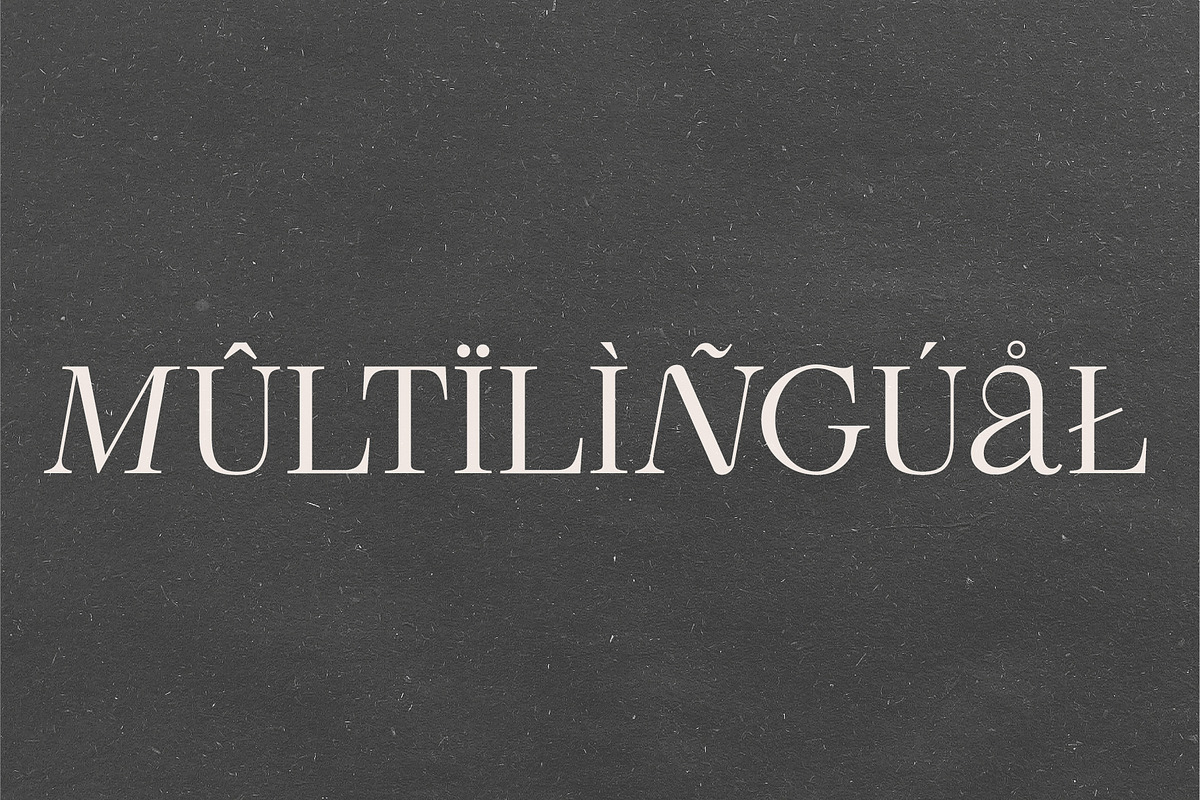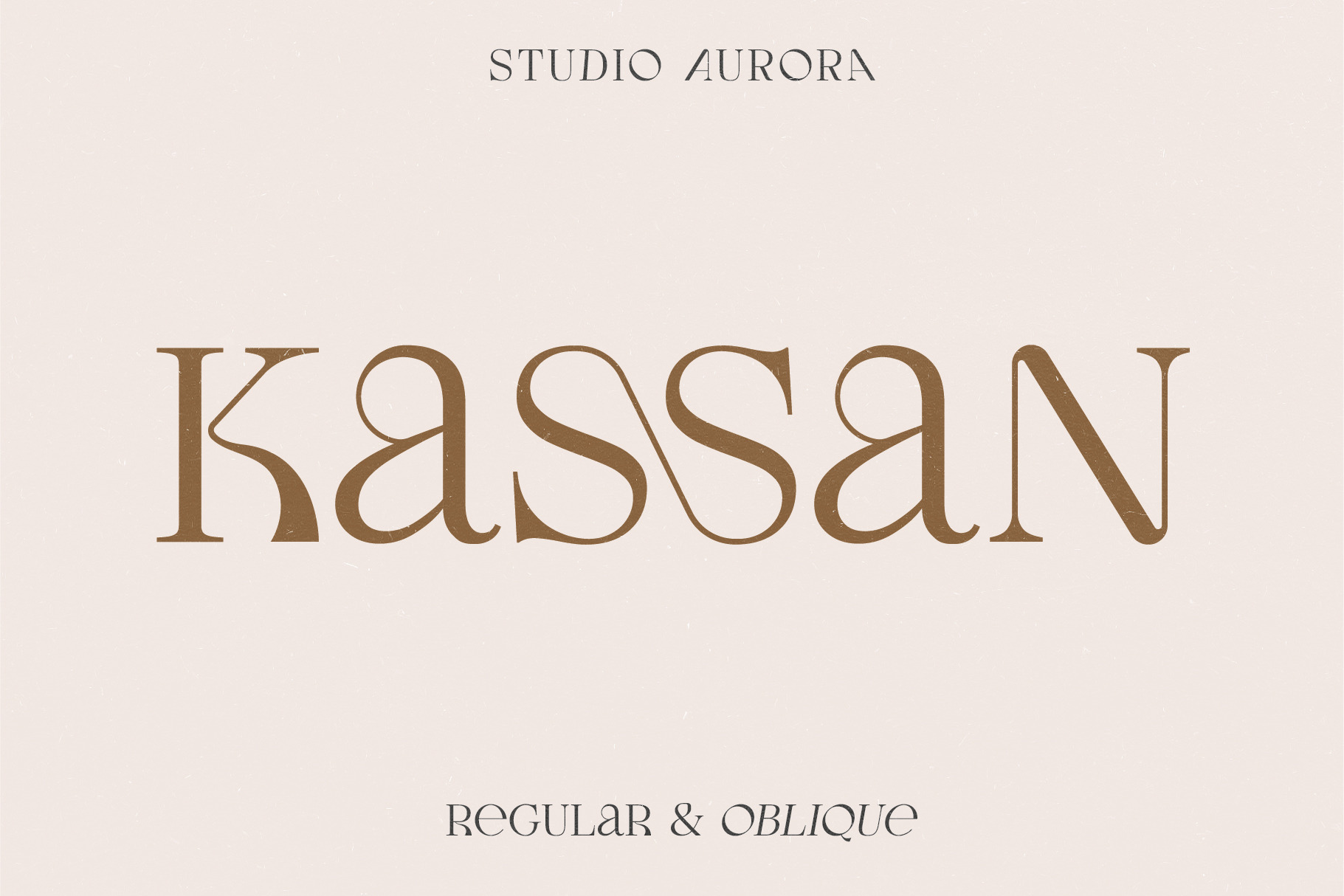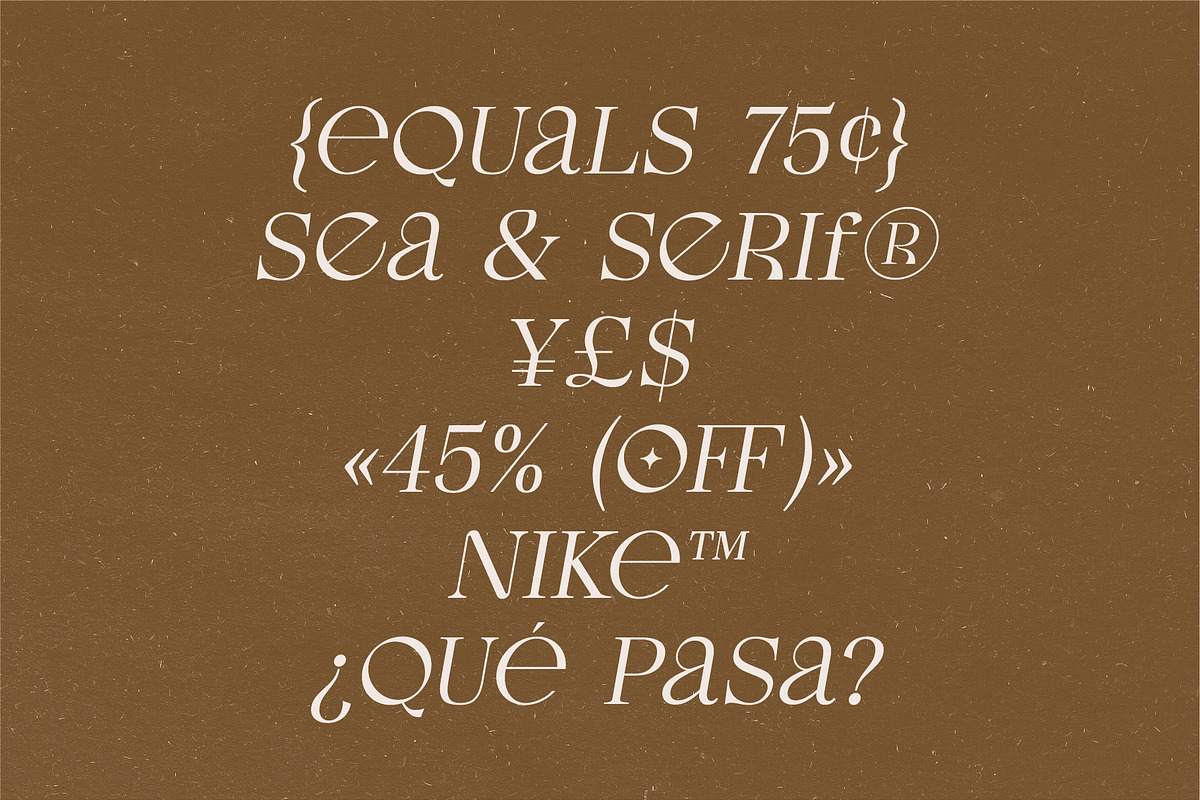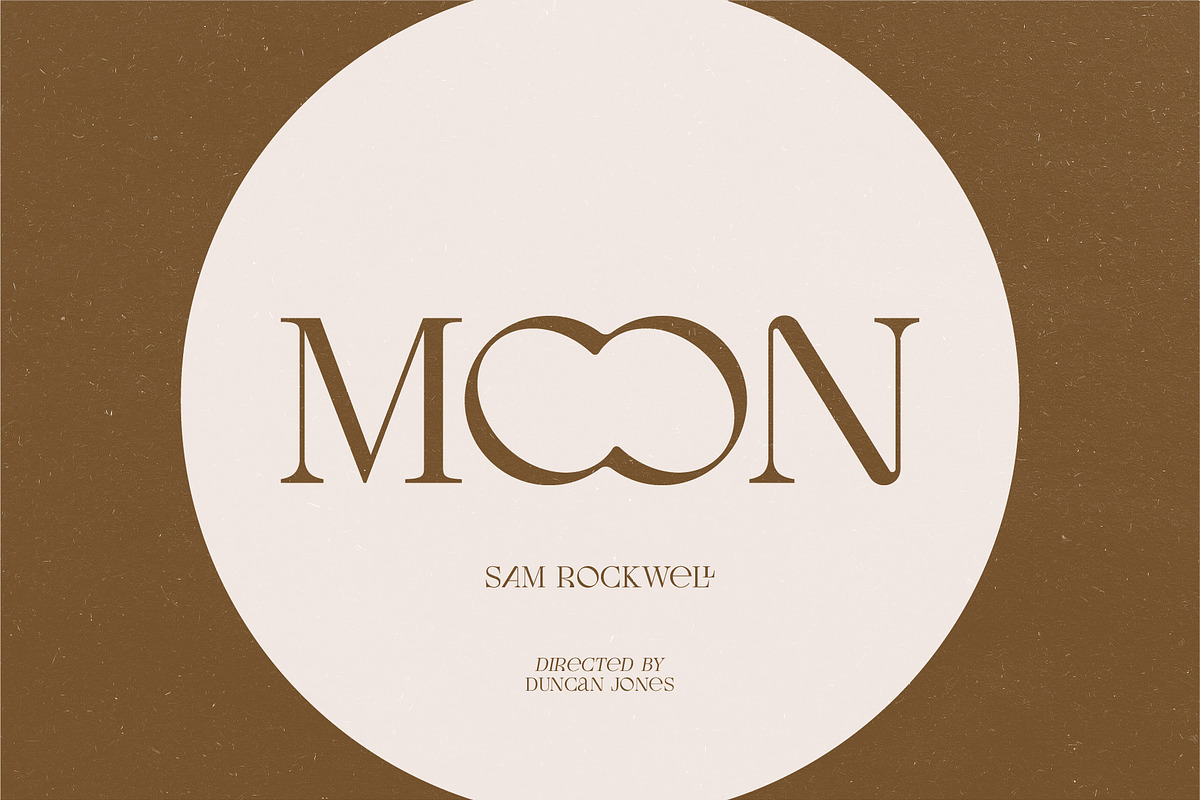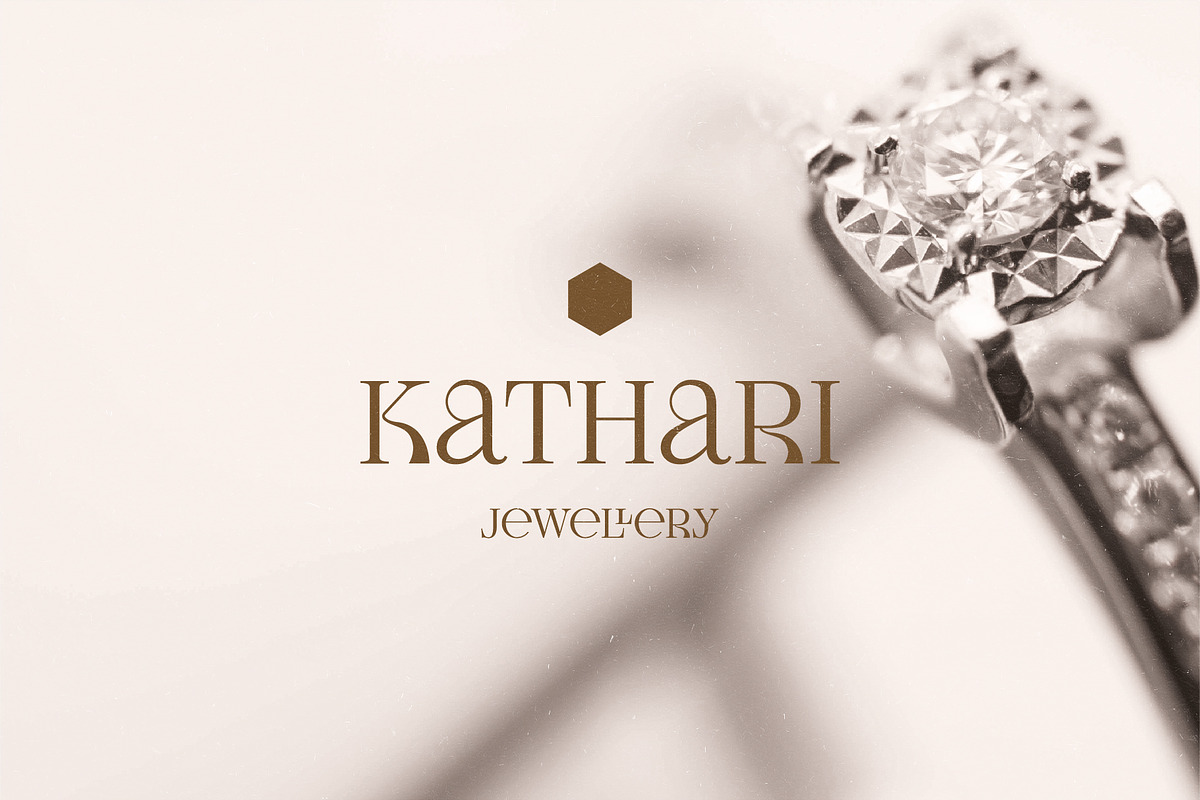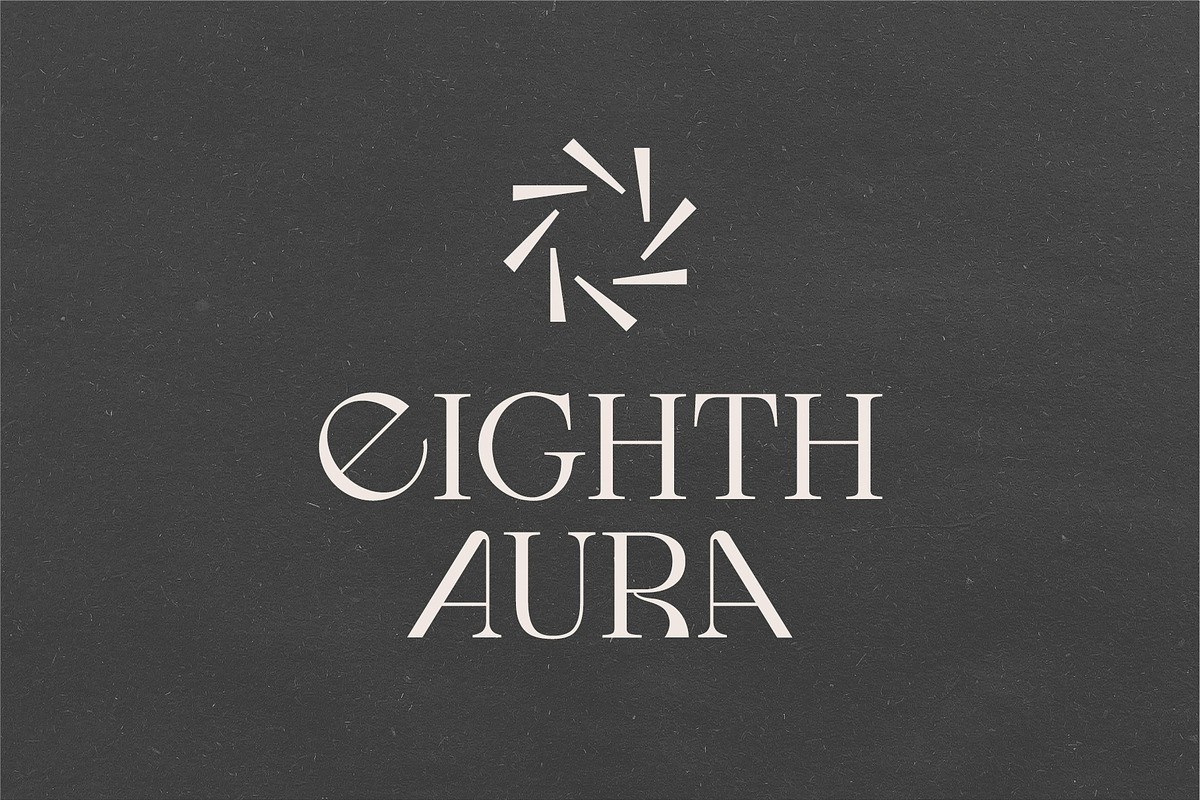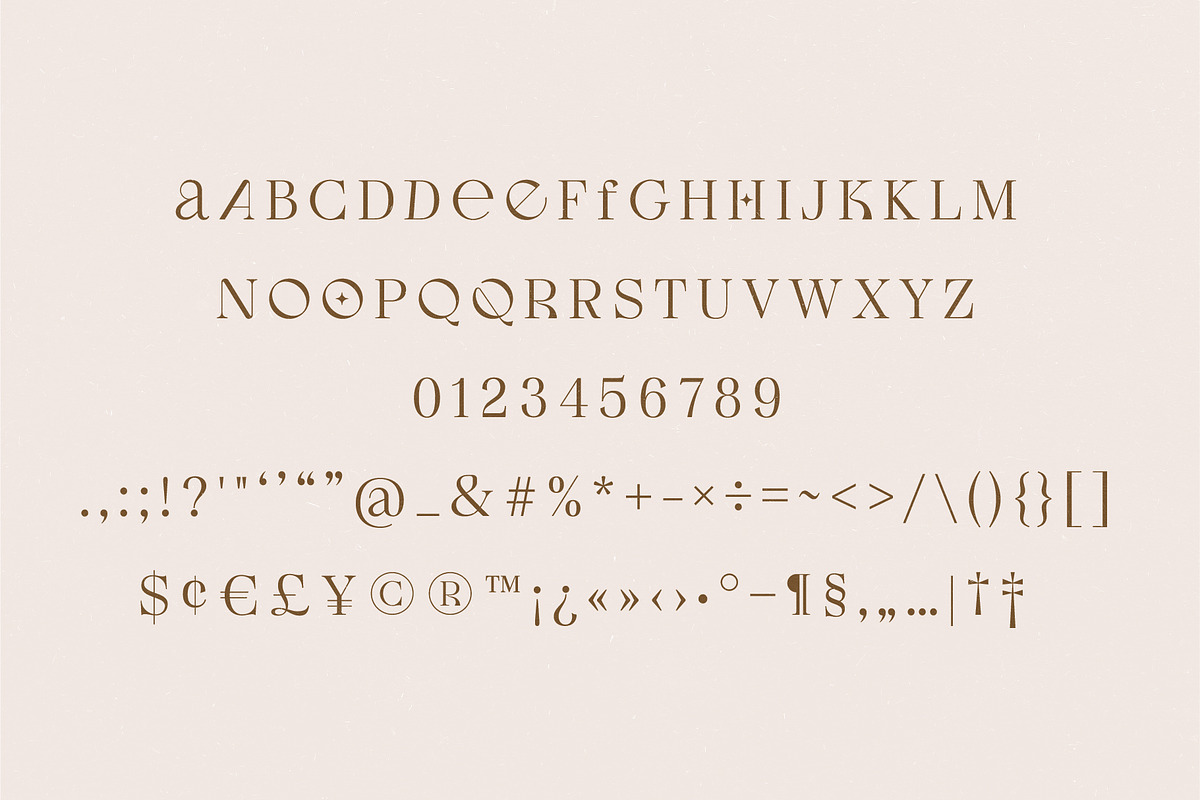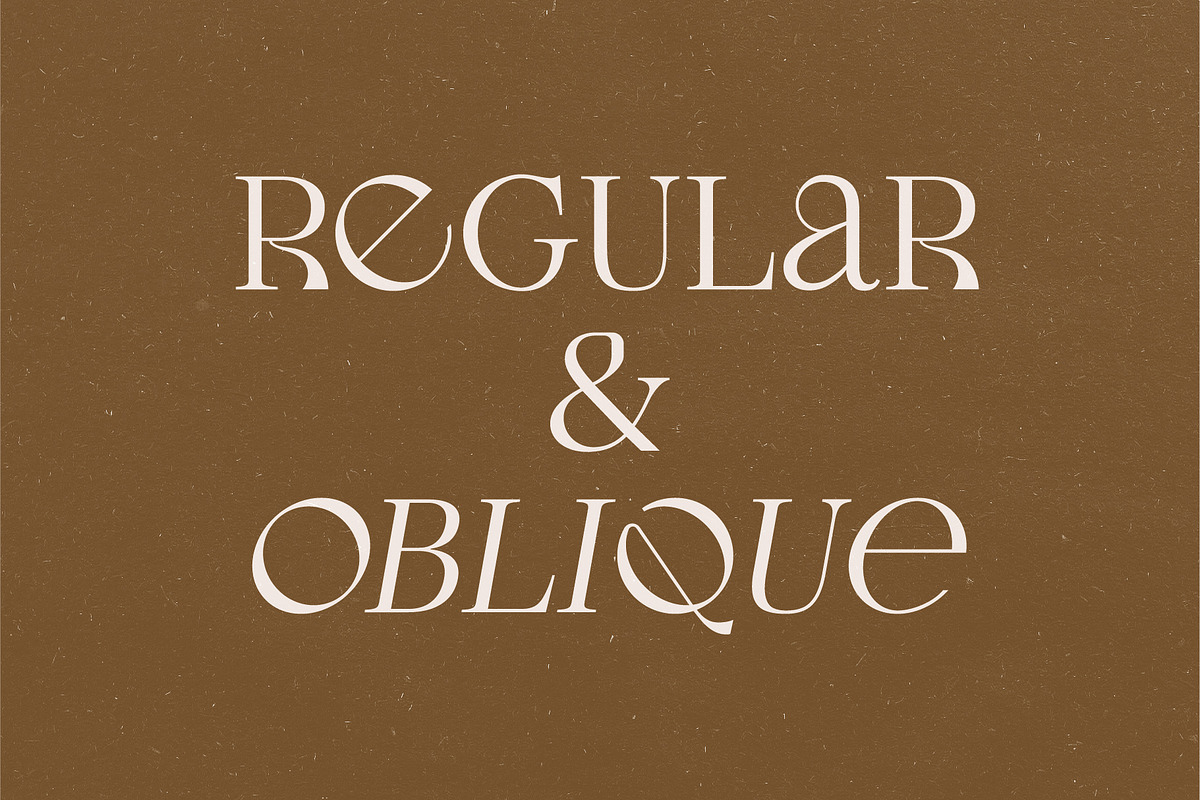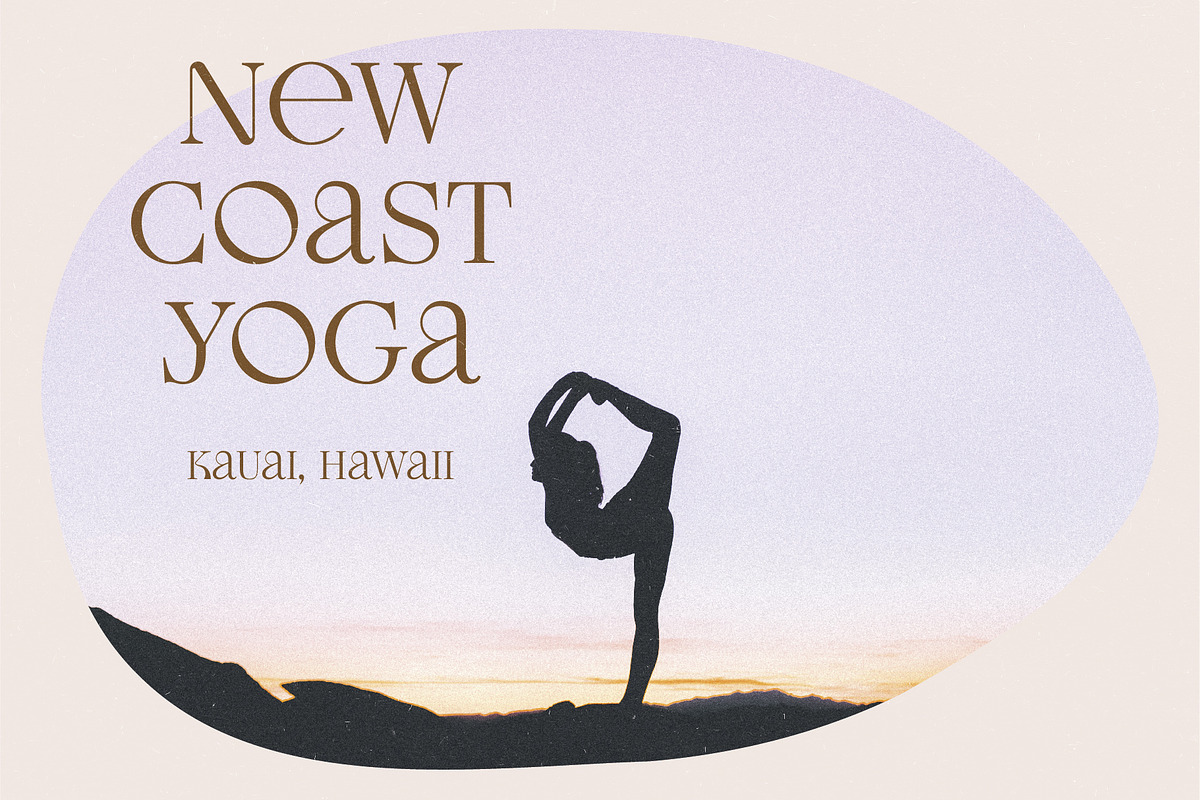
Kassan - Luxury Display Serif Font
Introducing our new typeface, Kassan - A modern, luxury fashionable display serif font. It is a single height font, utilising a mixture of lower and uppercase characters that brings a fresh and unique look to your designs.
It comes in two styles; Regular and Oblique and is packed full of alternates and ligatures.
This is primarily a display font (but can also be used for body copy) that we recommend using in the following types of work; magazines (titles and layouts), logos and branding, invitations, quotes, blog headers, posters, and advertising.
Love this font - well balanced styles and good kerning! It would be awesome to have just a few additional alternate glyphs, but totally love it and the flowing nature of the decorative letters.